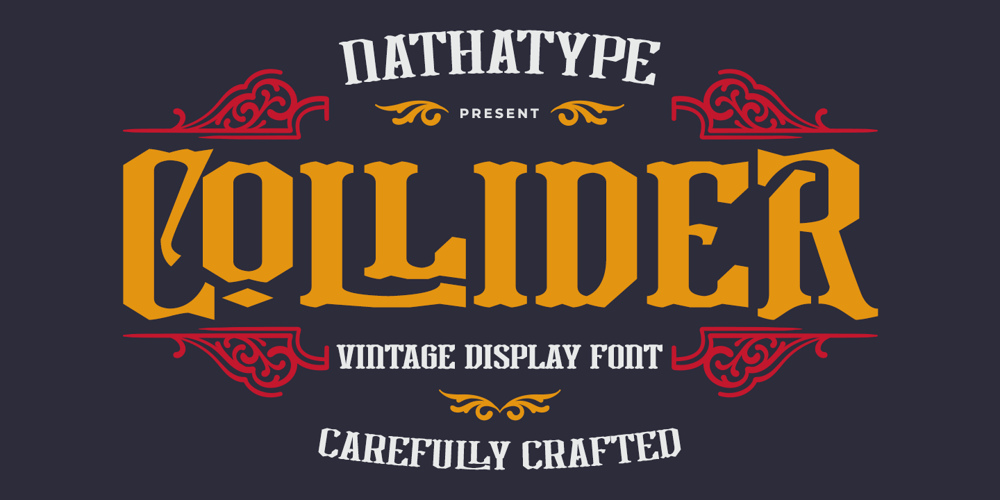
Collider Font Family was designed by Donis Miftahudin and published by Nathatype. Collider contains 1 styles and family package options. Collider, an uppercase display font that captures the beauty of vintage looks The proportions of the letters are deliberately uneven, lending an authentic quality to your text. Unlike conventional fonts with straight lines, this font takes a more organic approach. Its outlines are beautifully imperfect, flowing with subtle curves that add a touch of artistic flair. In addition, Collider gives ornaments as a special bonus. Collider fits in headlines, logos, branding materials, and many more.